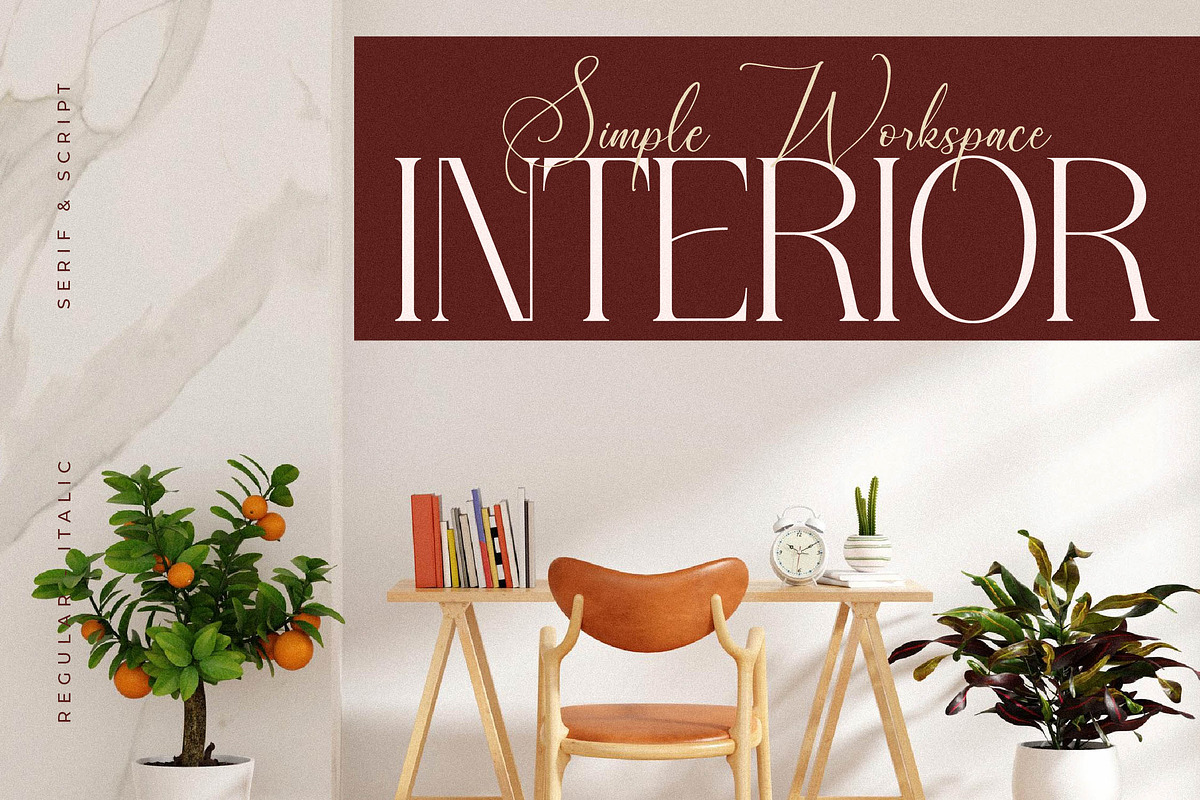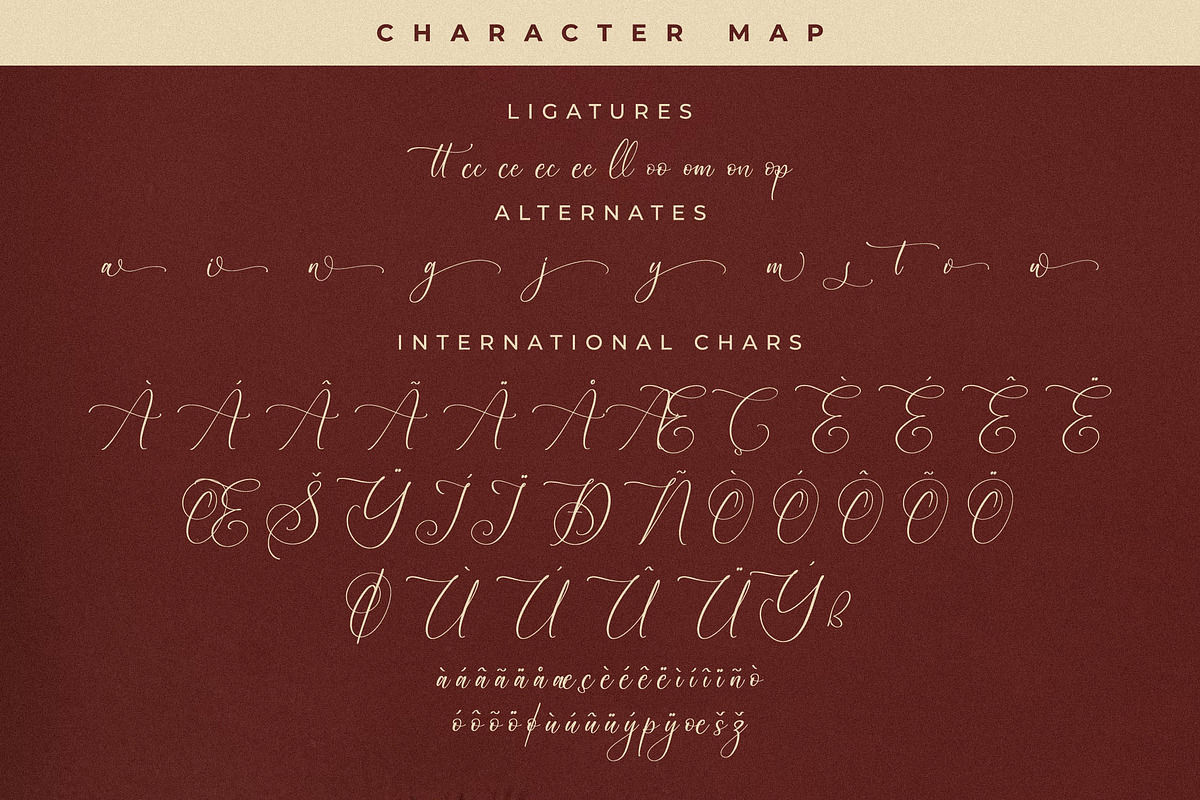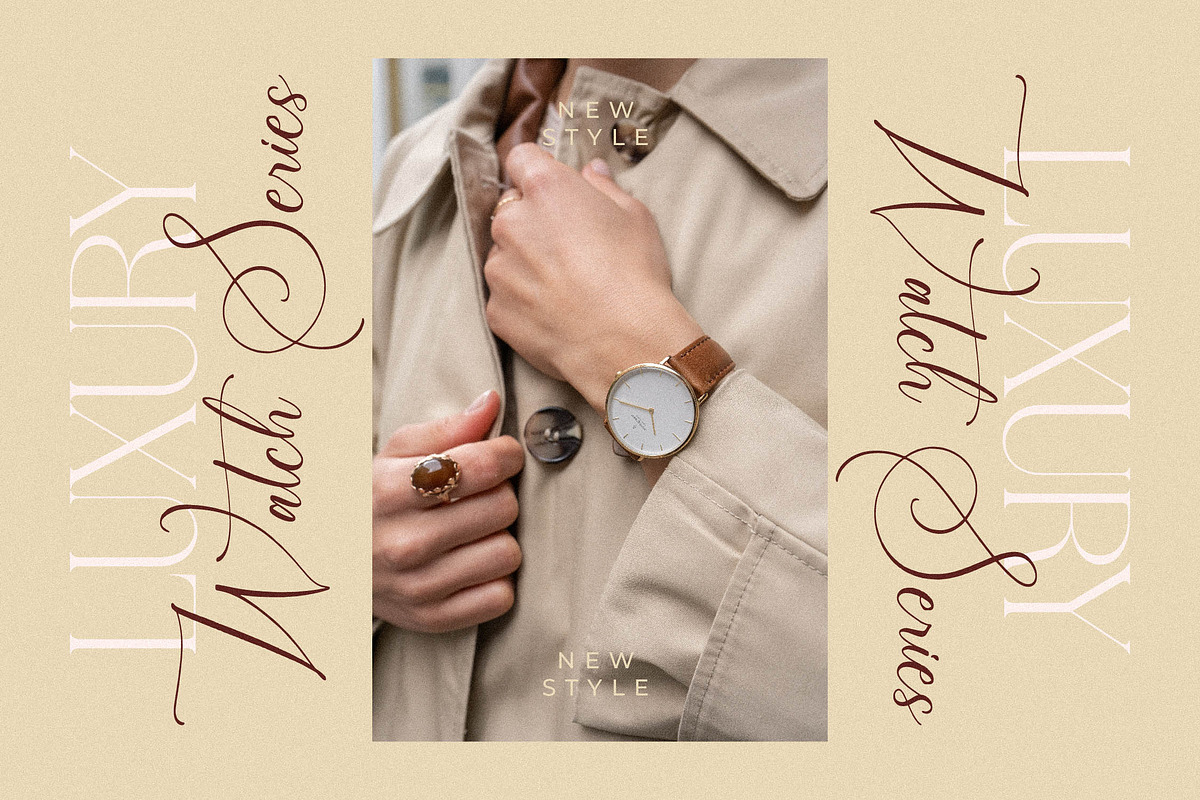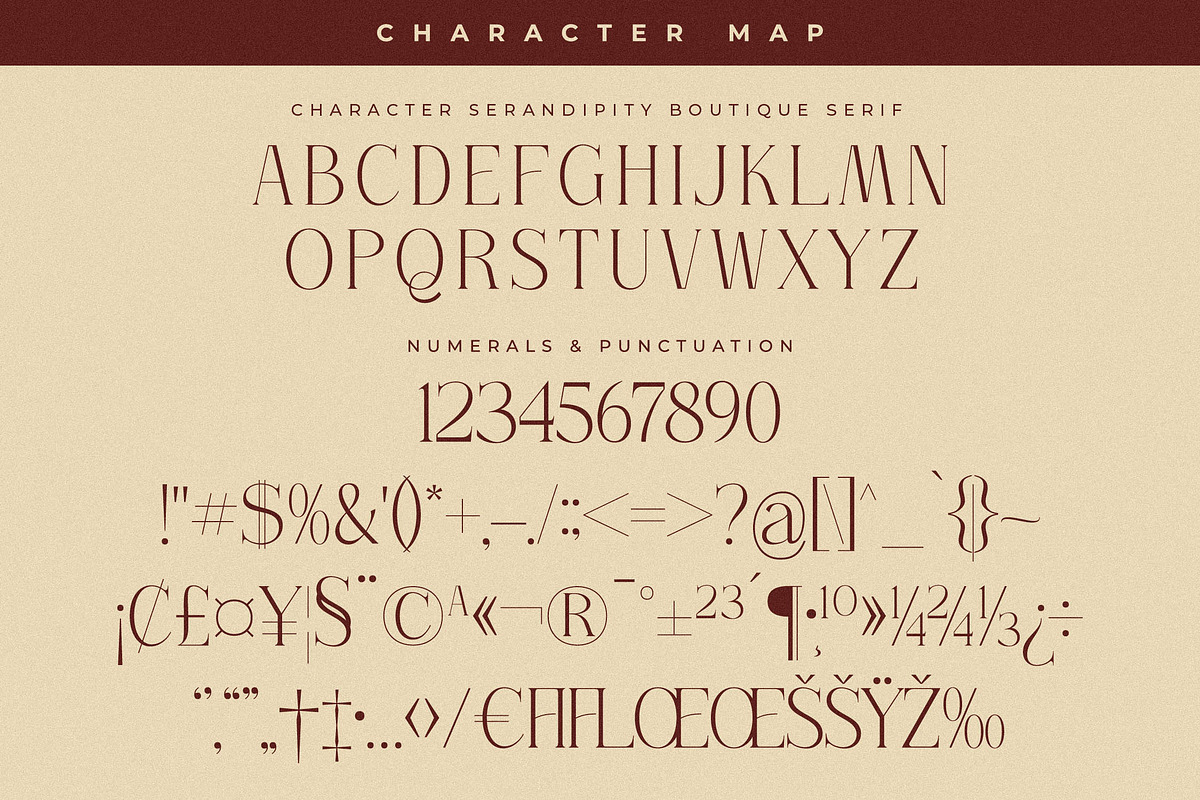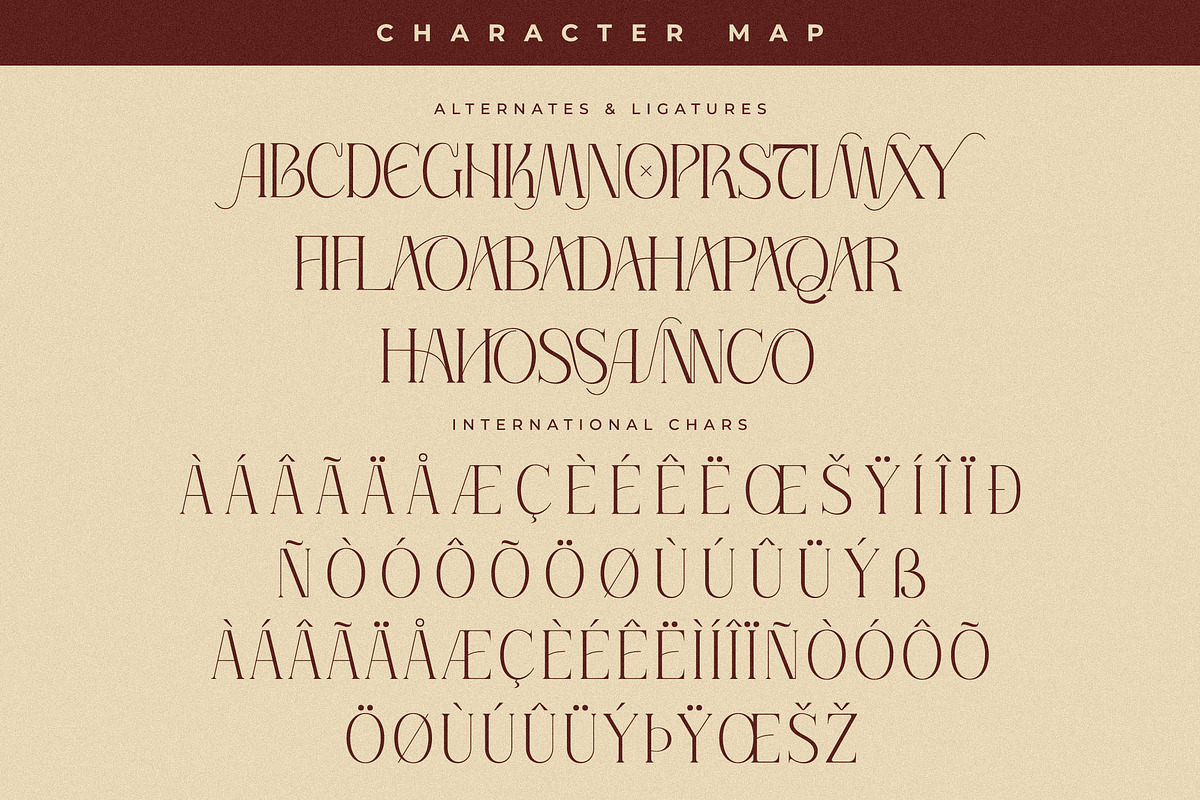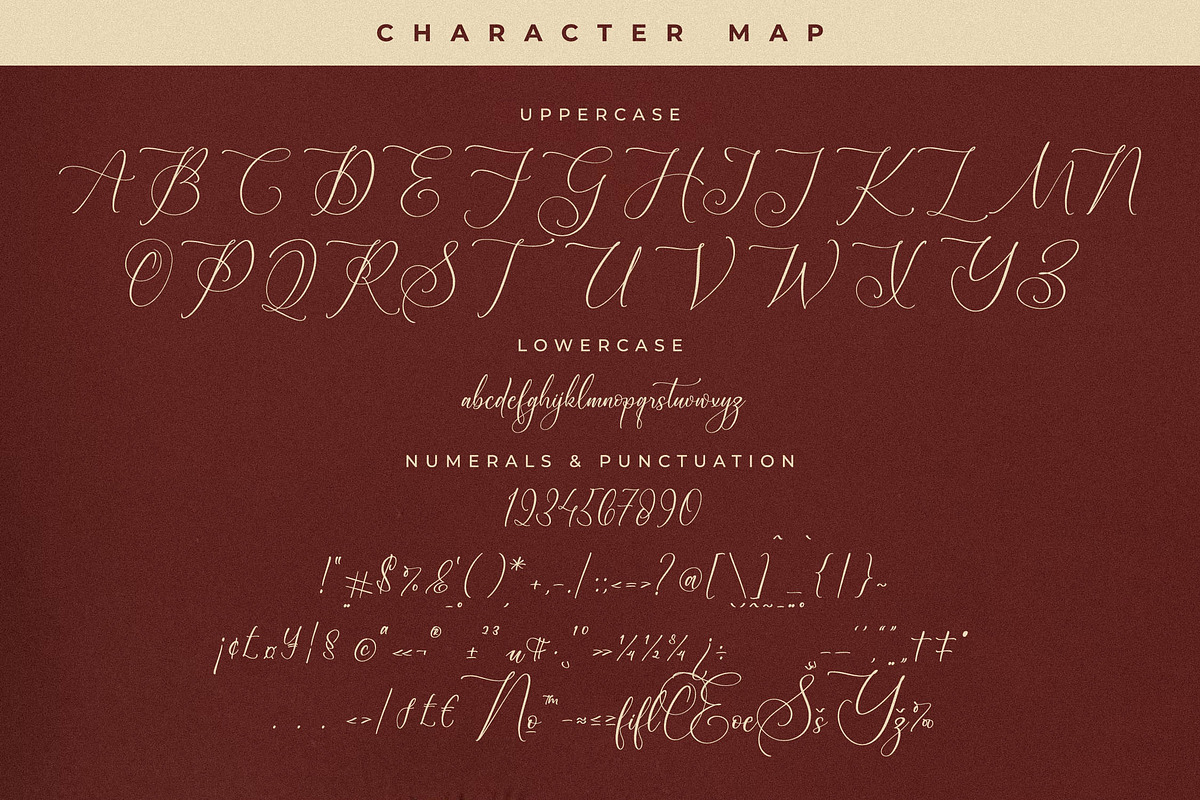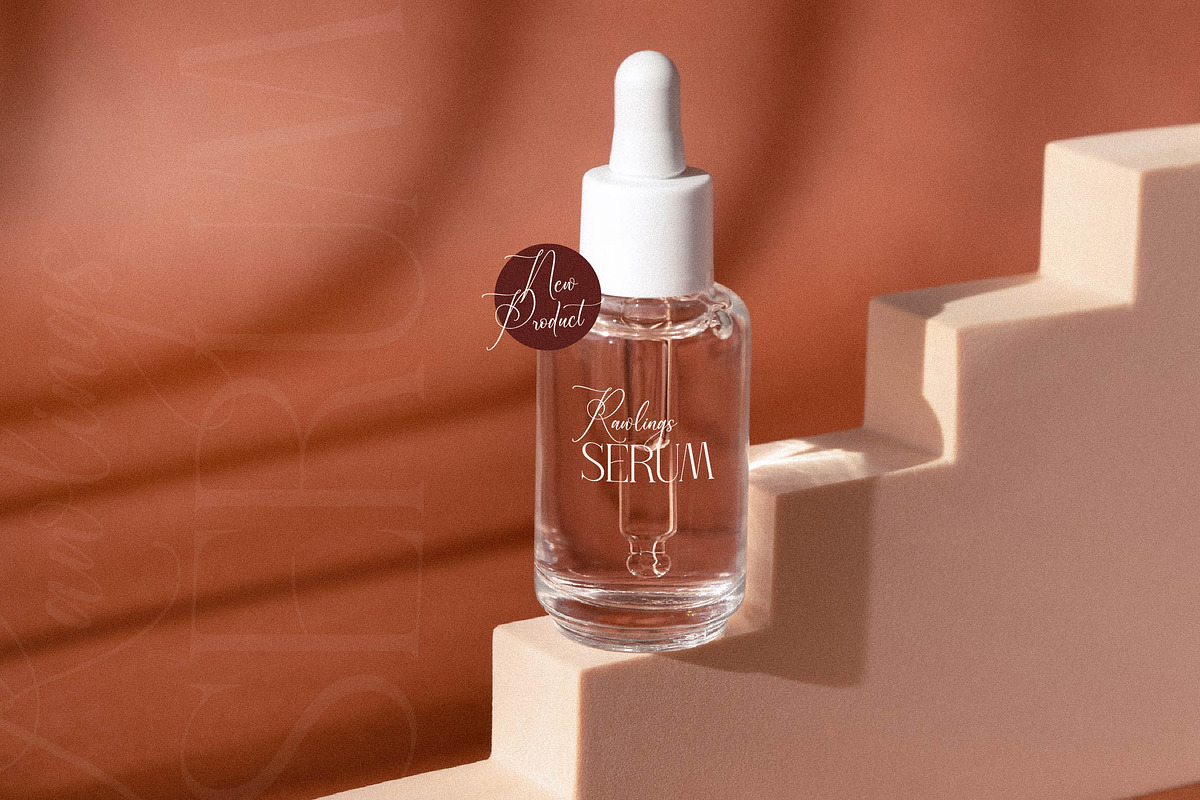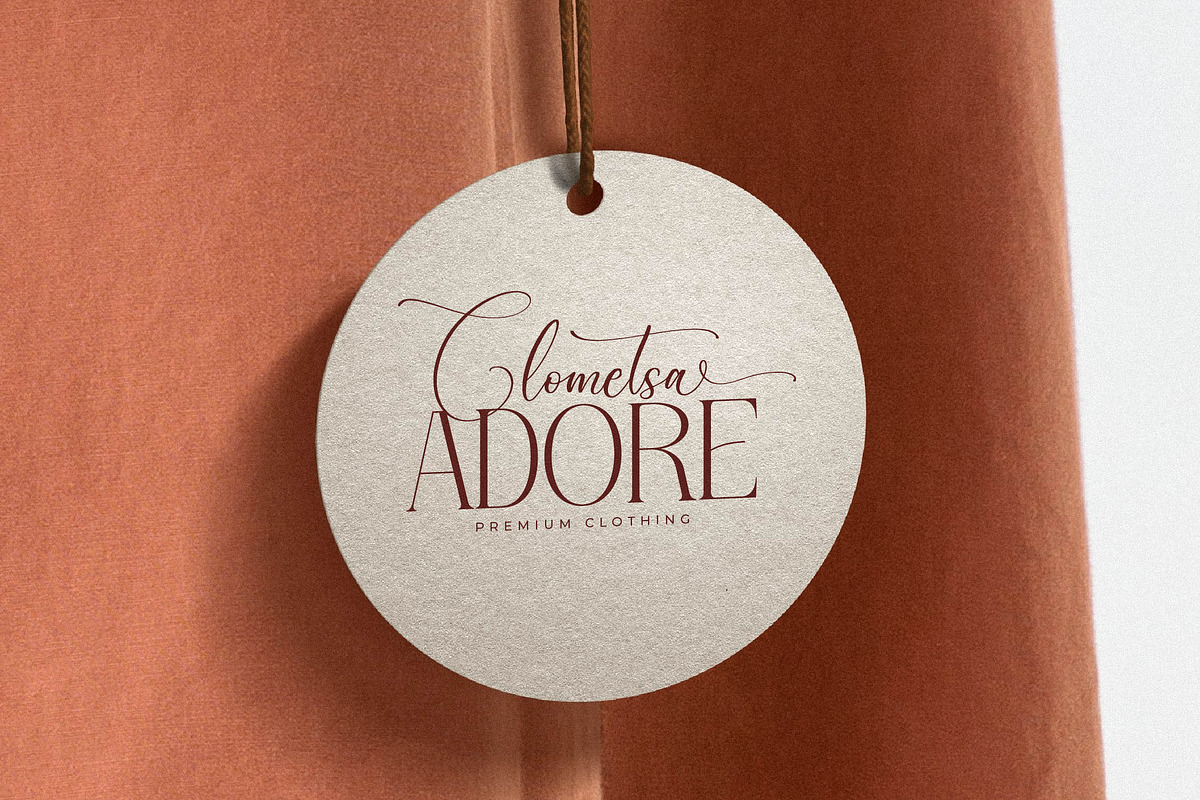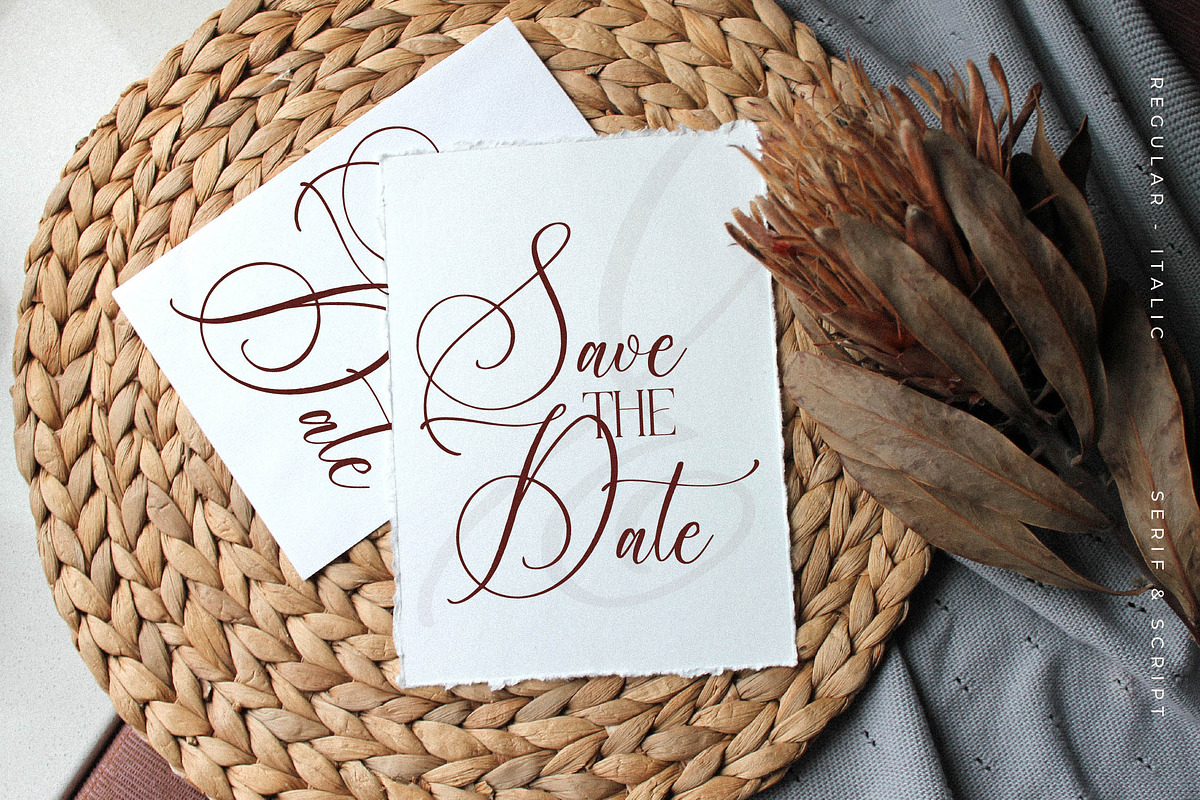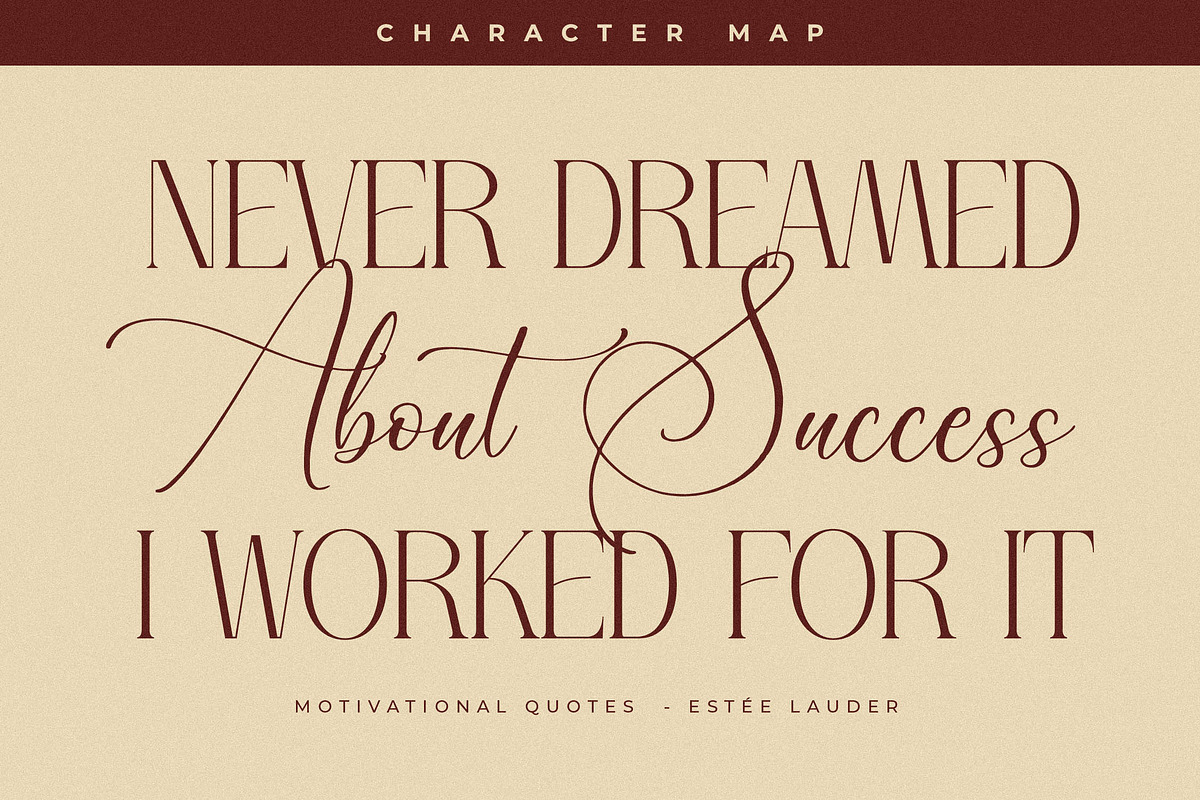
Serandipity Boutique Font Duo
Proudly present Serandipity Boutique Font Duo , created by Storytype, A serif and script typeface that has own unique style & modern look. This typeface is perfect for an elegant & luxury logo, book or movie title design, fashion brand, magazine, clothes, lettering, quotes, and so much more.